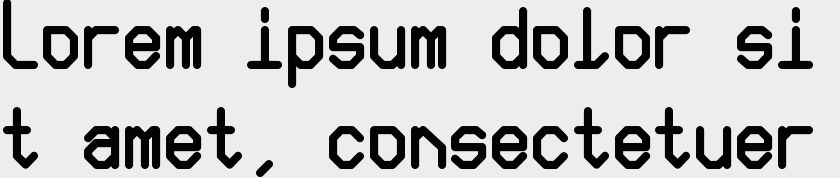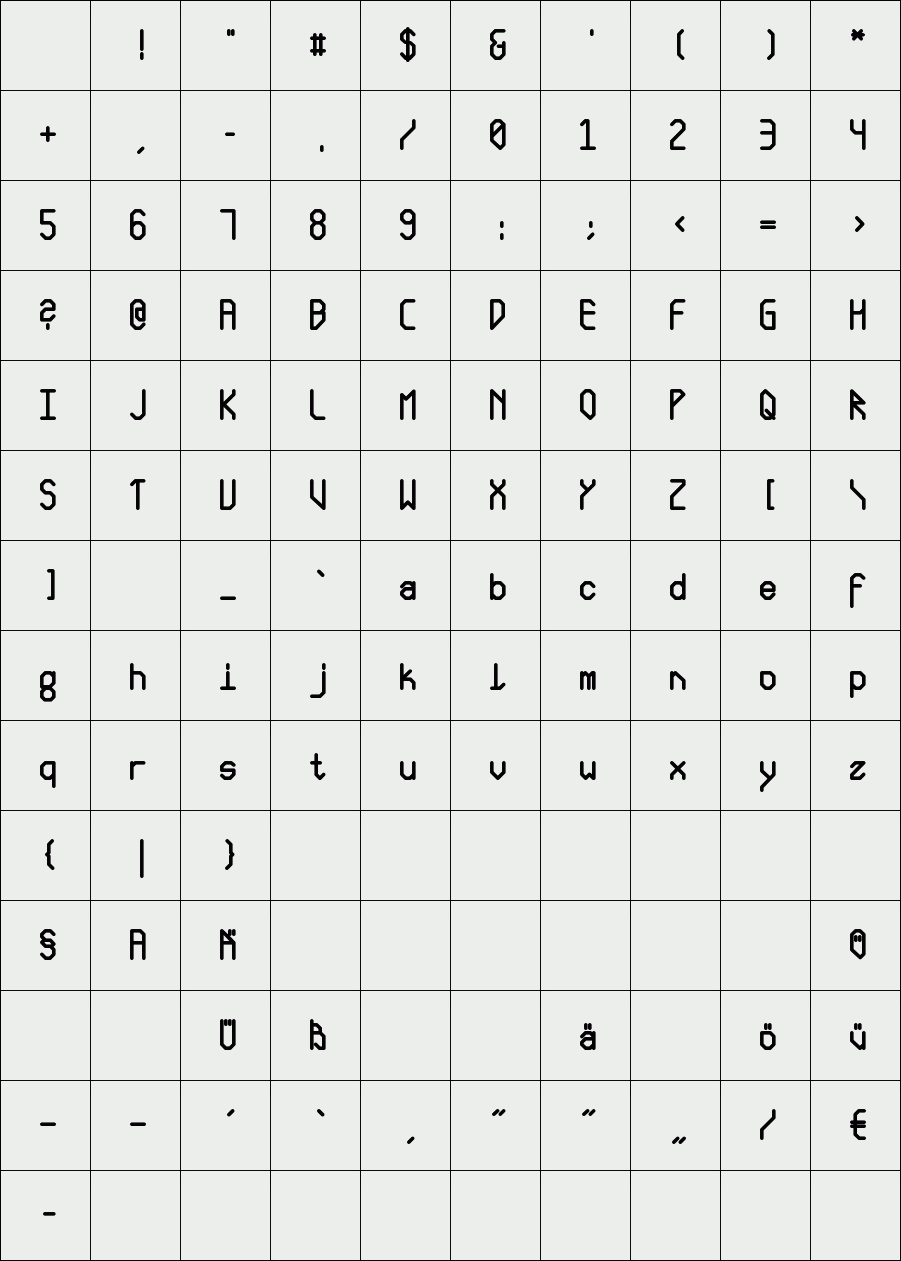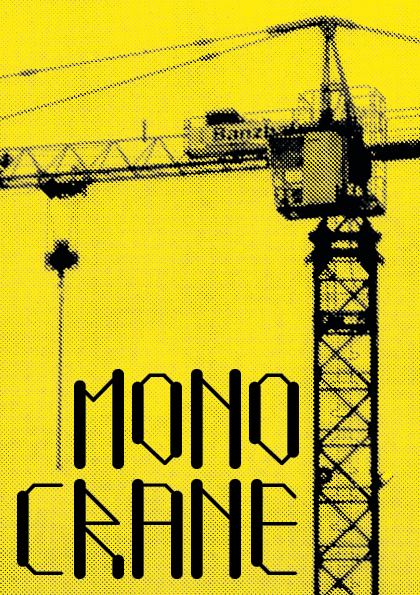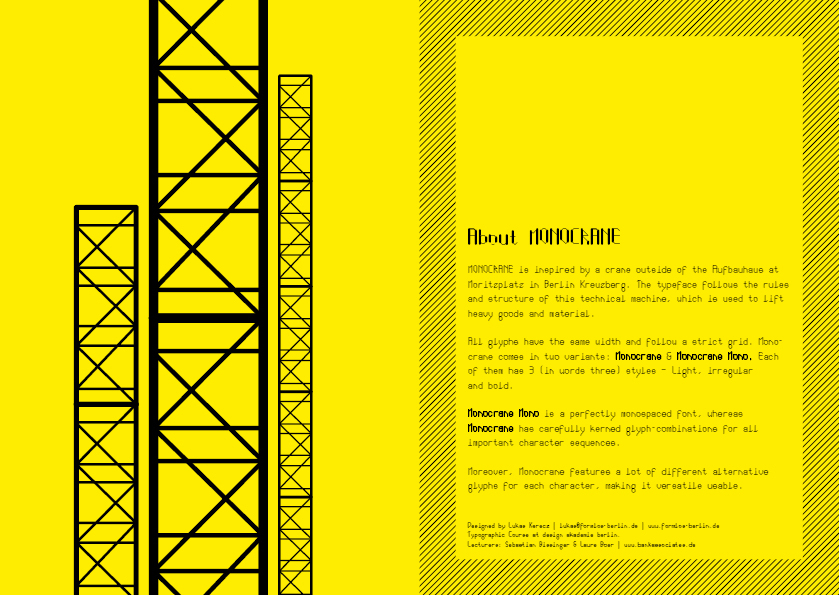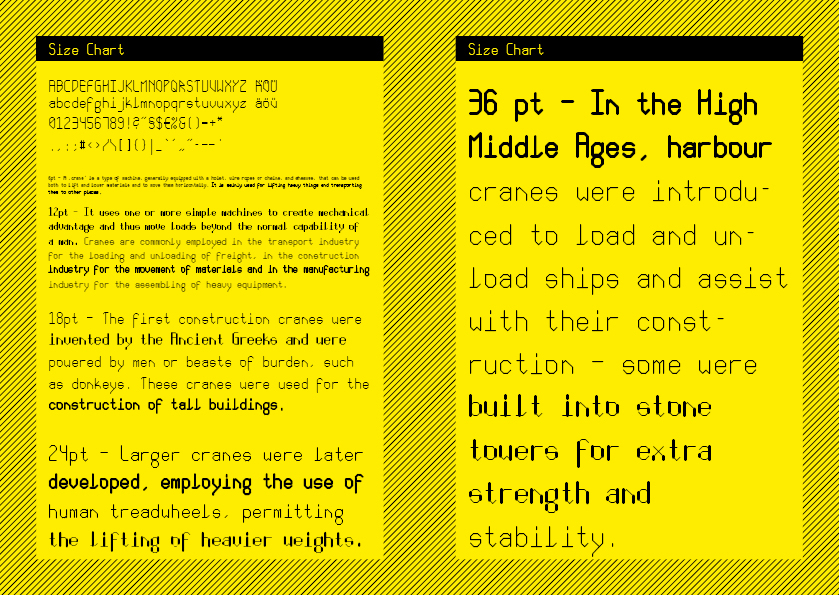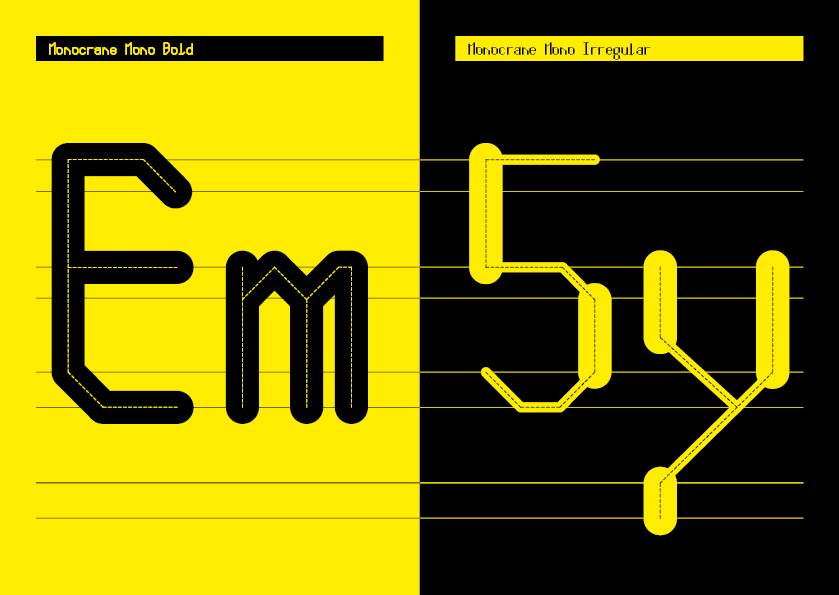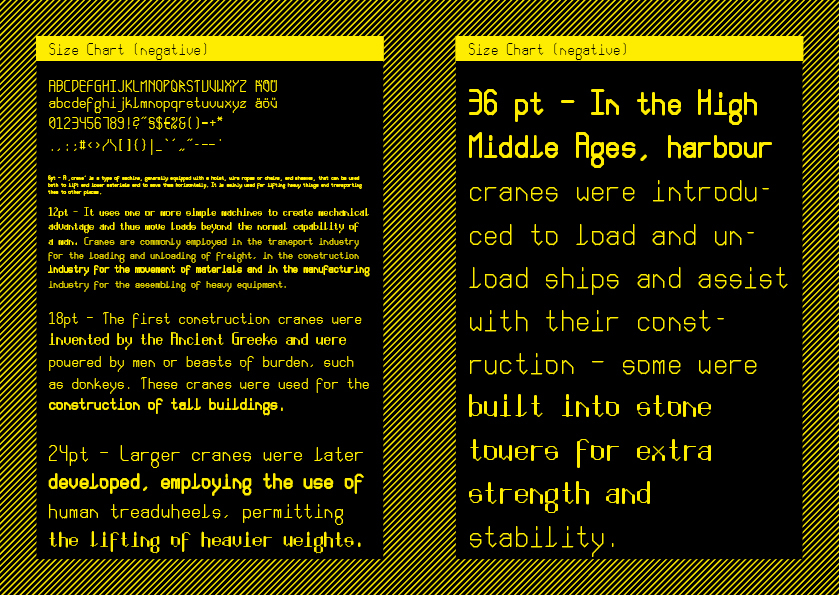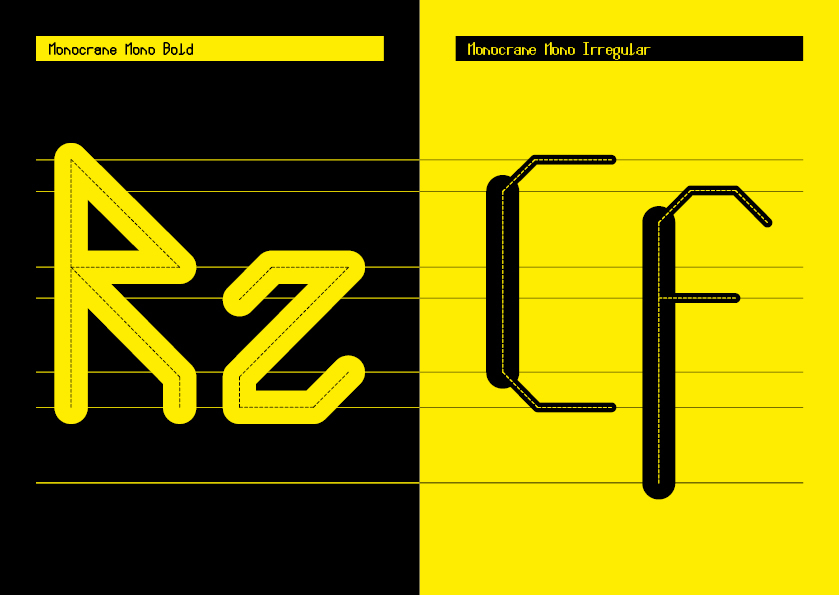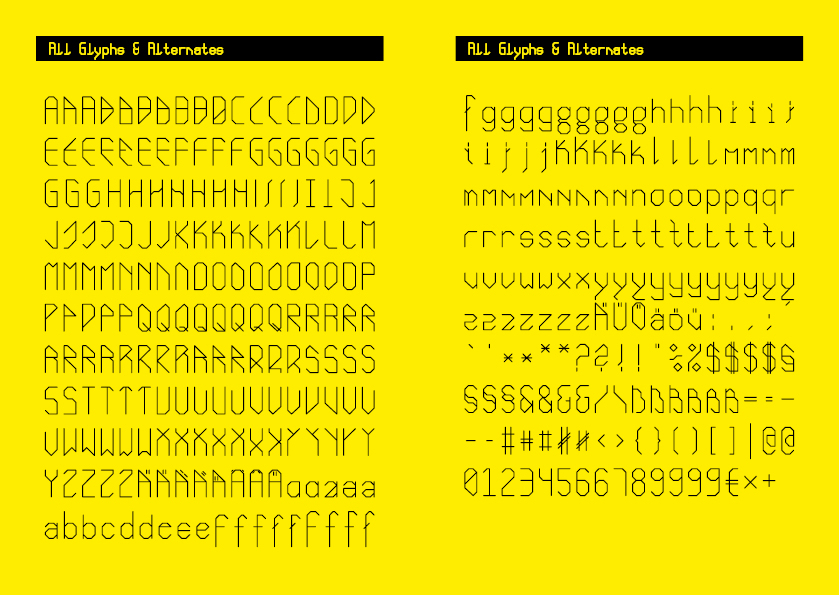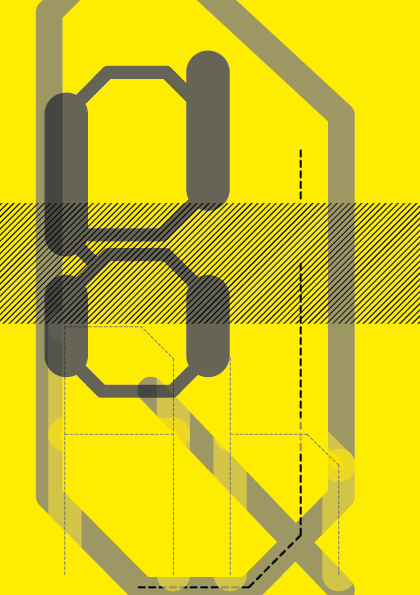
Monocrane
/ Monocrane Mono Bold
MONOCRANE is inspired by a crane outside of the Aufbauhaus at Moritzplatz in Berlin Kreuzberg. The typeface follows the rules and structure of this technical machine, which is used to lift heavy goods and material.
All glyphs have the same width and follow a strict grid. Monocrane Mono is a perfectly monospaced font and has 3 (in words three) styles – light, irregular and bold.
Moreover, Monocrane features a lot of different alternative glyphs for each character, making it versatile usable.
Typographic Course at design akademie berlin.
Lecturers: Sebastian Bissinger & Laure Boer | www.bankassociates.de
Designer: Lukas Kerecz